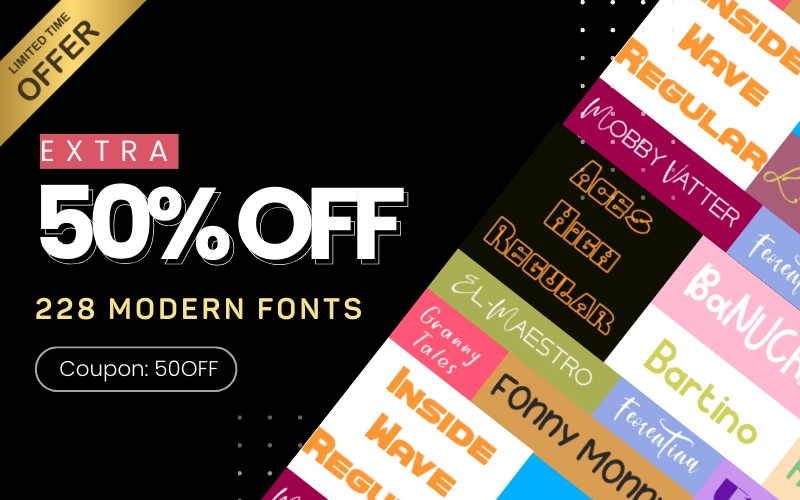
228 Best Modern Fonts Bundle
The Best Modern Fonts For The Best Designs!
Express your work in a modern style, with the bundle of the best modern fonts in your designs. The Best Modern Fonts Bundle is a collection of 228 handcrafted fonts, designed to add style and professionalism to your Projects.
This bundle features a wide variety of fonts starting from Amber Rose to Glam Rock and many others.
These fonts also include ligatures and alternatives, which makes way for better and more diverse designs.
These unique handmade fonts support multiple languages, allowing the possibility of a personal and authentic touch to your designs.
Whether you are looking for a simple, minimalistic design or a bold, eye-catching one, this font bundle is a go-to for your every need.
Best Modern Fonts Included in this bundle:
Multilingual Fonts:
Banuchi
Bartino Font Family
Bionicle
Bluberry Powder Font Duo
Choosing
Christmas Vibes
Diamonds and Rust Historical Font Duo (Font Family)
El Maestro
Granny Tales
Inside Wave Font Family
Lambrusco
Luxury Signature Font Duo
Make Lighter Font Duo
Mega Lo Mania (Variable)
Movenpick Font Family
Omerta Font Family
Pink Barbie
Princess of the Dark
Skeletons
Sporting
Tabasco
The Another
The Monterey (Font Family)
When Milders
Yelabuga
Beauty
Camsay
Claster
Dreaming
Fresh Bakery
Get Run
High Way
Jiguliny
Last Factory
Lovely Star
Lucky Station
Moorland
No Limits
Parabelum
Power of Love
Quake Love
Rasty King
Salt Lake
Sanctuary
Sanitary
Showtime
Stone Soul
Stronger
The Sangria
Wimmer
Solitude
Other Fonts:
Bristole
Aces High
Bubble Dubble
Buchery
California Style
Children Dreams
Cinerda
Elgrand
Feorentina
Figuero
Fonny Monny
Font by Kids
Fontik
Jimolost
Mandaly
Melodica
Meticolous
Mistakes Showing
Mobbly Vatter
Rombik
Simplesly
Western Mania
Wild Monkey
Wikky Merry Song
Witalina
Bakery
Bangin
Black Hawk
Brockman
Bon Voyage
Amber Rose
Best Choice
Blitz
Brigantine
Brighton Beach
Candyman
Capitals
Sinthia
Crimson and Thunder
Crusher
Desert Strike
Fanuchi
Flaming
Foundation
Friendship
Germany
Gilbery
Glam Rock
Hardwired
Health
Hello My Durling
Himperial
Holy Cow
Jackstone
Jennifer
Korolev
Laser
Lemon and Fresh
Master and Margarita
Memphis Style
Midnight Show
Medal of Honor
New Wave
Predators
Prince Charming
Prince Crown
Raconteurs
Red Wings
Sambery
Santy Fergason
Satori
Scream Team
Shelly
Silver Bullet
Smashy
Solited
Soul City
Spasibo
Sunlight
Brighton
The Queen
The Sterling
Twinkling
Velomo Font Duo
Zero Style
Batallion
Berzeker
Black Label
Boronic
Ceremony
Coliseum
Custom Craft
Darkstar
Dogmatic
Equestrian
Wondery
William
Wildlife
Venture
Twilight Zone
The Love
The Strokes
The Mercury
The Malorry
Stereotype
Stayer
Stay Clean
Special Blend
Silvia One Love
Sileighty
Seek and Destroy
Secret Service
School of Rock
Scary Stories
Satirically
Salto
Rockstar One
Pure Love
Paranoid
Mr. Jester
Mistery
Mengano
Mature
Mushrooms
Maranta
Mandarina
Loveit
Kashtanka
Kangary
Kalmaros
Instance
Home Sweet Home
Hey Kent
Heart of Stone
Handsome Devil
Great Wall
Golden Palace
Fully Flared
Felicita